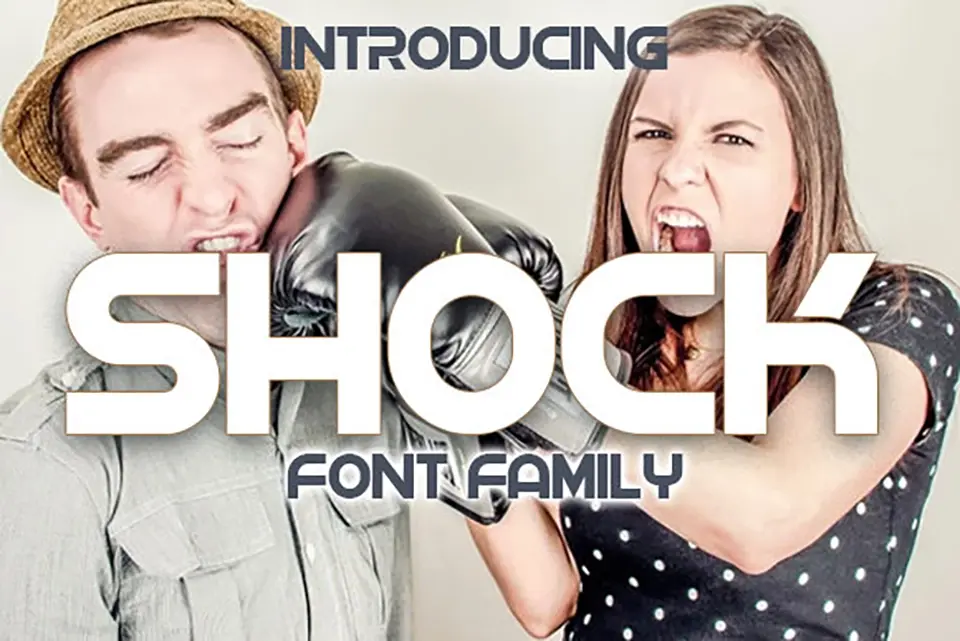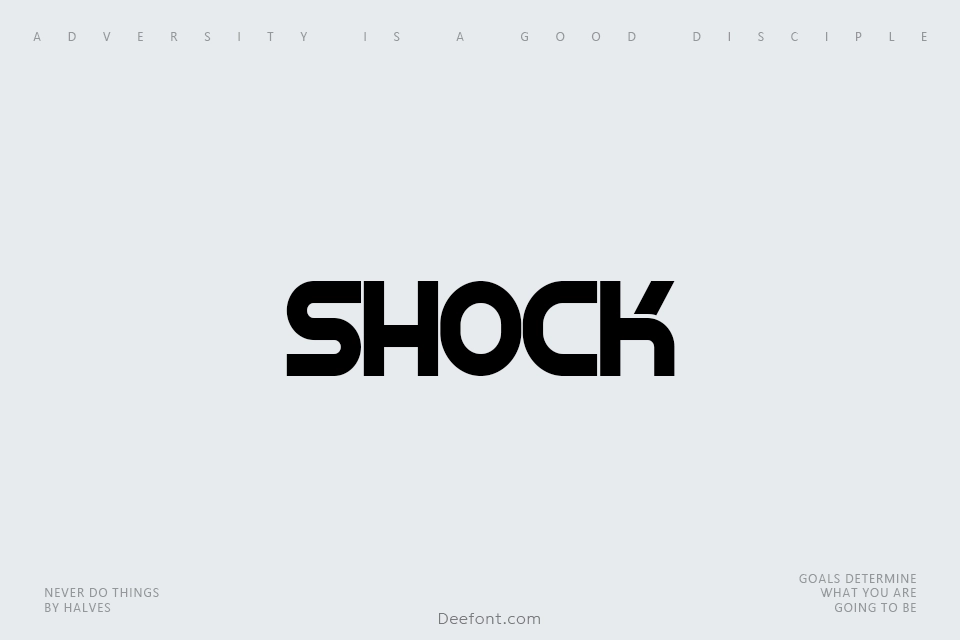
Shock Font
Shock is a bold and eye-catching display typeface designed to add impact and drama to headlines, posters, logos, and branding materials. Characterized by strong, thick lines, sharp edges, and distinctive letter shapes, this modern sans-serif font commands attention with its aggressive yet contemporary aesthetic. Available in three weights—Regular, Light, and Thin—Shock excels at creating dramatic visual statements while maintaining versatility across various design applications. The font's geometric construction and high contrast make it ideal for designers seeking bold, attention-grabbing typography.